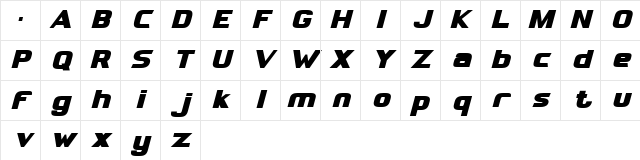
TRAVAX Regular Free Font
TRAVAX Regular
Designer: Flawless And Co
Design Context for TRAVAX
TRAVAX is a composed and adaptable typeface that performs quietly and consistently across a wide range of design contexts.
Pro Tip: Use TRAVAX in both headline and body roles to test its range before committing to a single application.